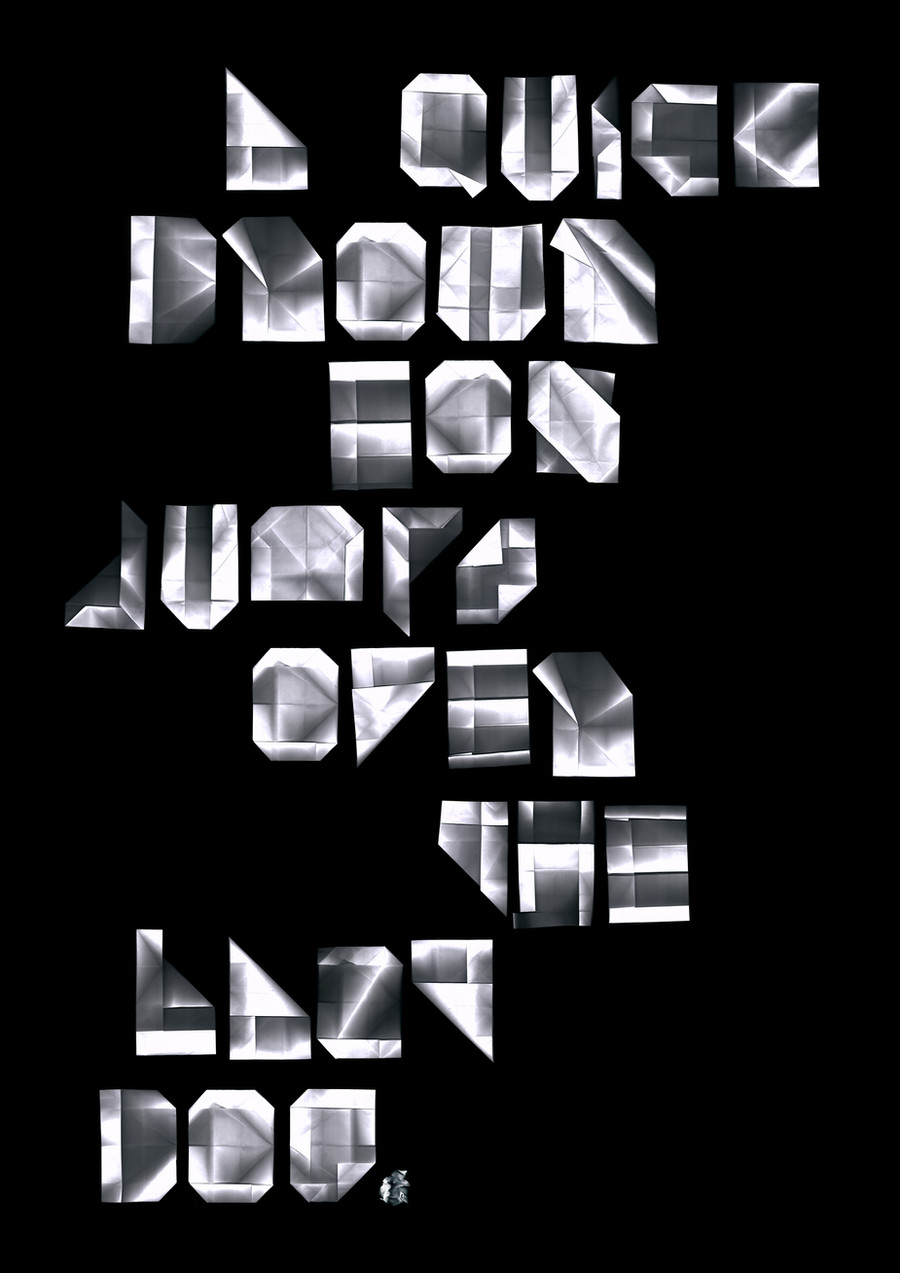
made from scanned A4 paper, using only folds.A Quick Brown Fox Jumps Over The Lazy Dog
That's pretty cool! Though I have to say it's a bit hard to read. I really like the idea, it's all folded paper...awesome!
beauty in abstraction. my favourites the 'Q'